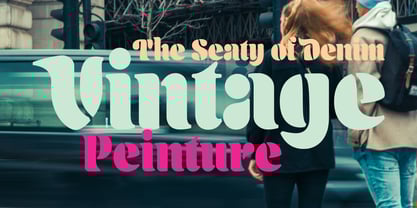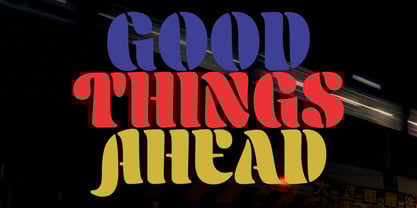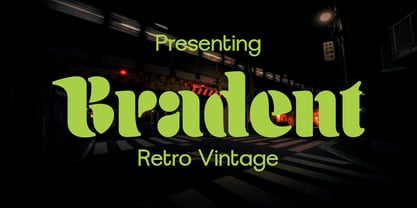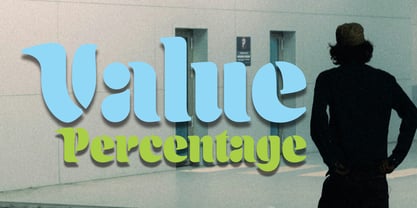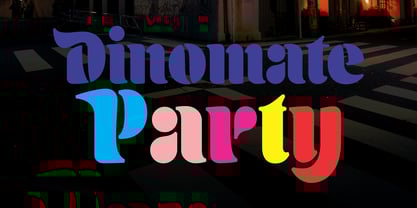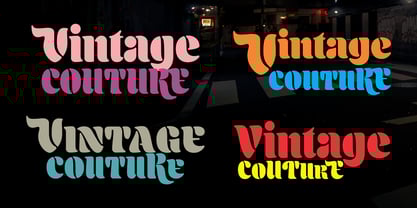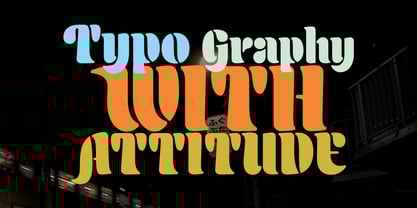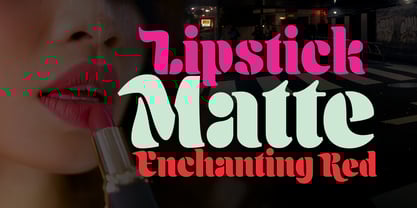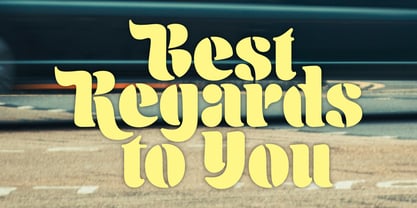
Bradent
Die Schriftfamilie Bradent wurde von Yusliana M Isa entworfen und von Gian Studio veröffentlicht. Bradent enthält 1 Stile. Mehr über diese Familie
Introducing Bradent, the ultimate vintage motorcycle-themed font collection designed to bring the spirit of the workshop to your designs. This dynamic set combines the best of stencil-style serif and sans-serif fonts. With three unique styles to choose from—regular, rough, and stamped—Bradent offers authenticity, allowing you to easily give your designs a classic, rustic look. But that's not all! Together with the Bradent font, capture the essence of vintage motorcycle culture with detailed stencil and stamped visuals. Whether you're working on posters, logos, apparel, or other creative projects, Bradent provides the ideal typographic foundation to add a touch of nostalgia and strength to your designs. Embrace the spirit of adventure, strength, and craftsmanship with the Bradent font collection and let your creativity run wild. Tip: Avoid using vintage fonts for long paragraphs of text, as their readability is typically lower than modern fonts. Use them only for headlines or large titles.